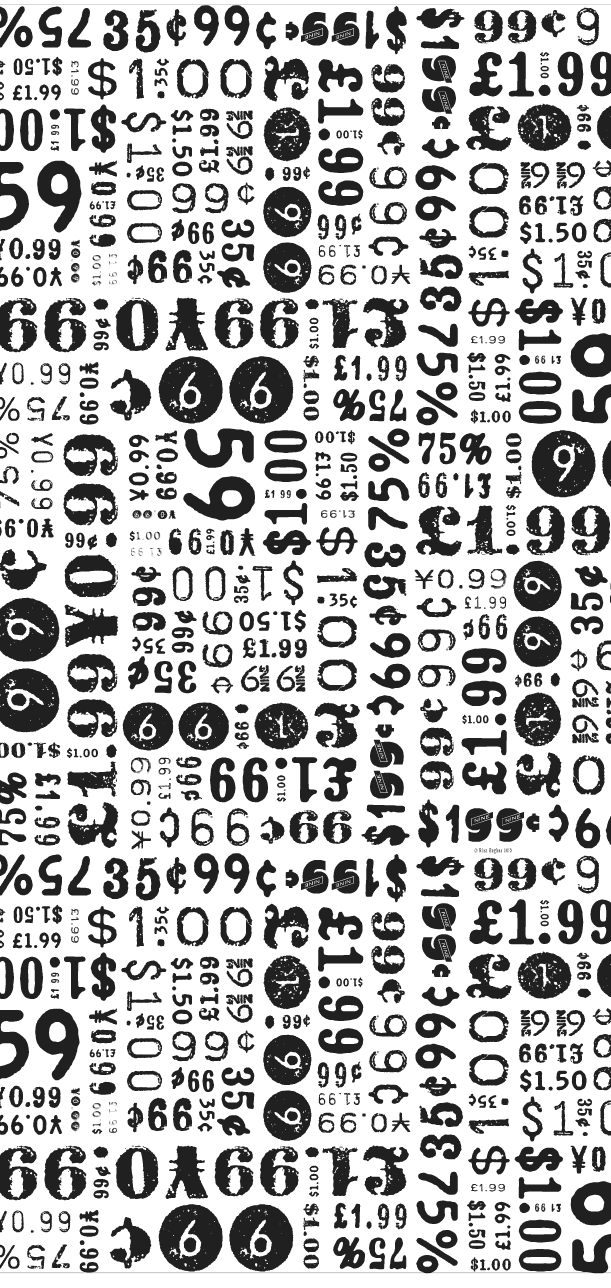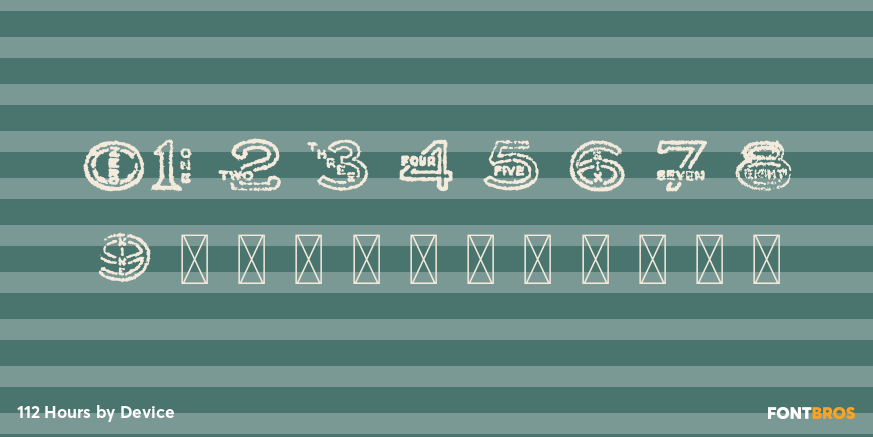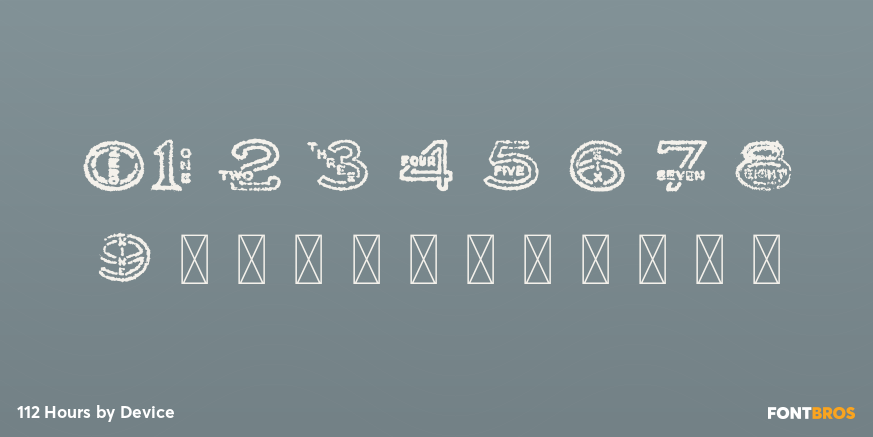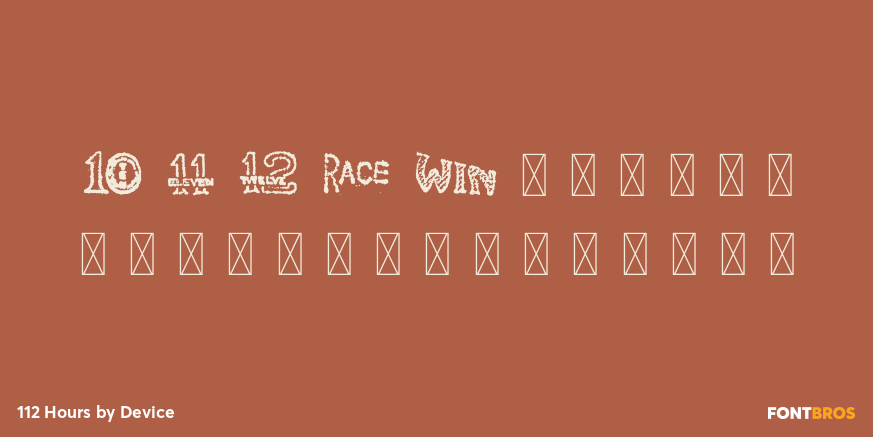
112 Hours
Font Family by Device Fonts
"Rian Hughes? 15th collection of fonts, ?112 Hours?, is entirely dedicated to numbers. Culled from a myriad of sources ? clock faces, tickets, watches house numbers ? it is an eclectic and wide-ranging set. A new book has been designed by Hughes to show the collection, and includes sample settings, complete character sets, source material and an introduction. This is available print-to-order on Blurb in paperback and hardback: http://www.blurb.com/b/5539073-112-hours-hardback http://www.blurb.com/b/5539045-112-hours-paperback"